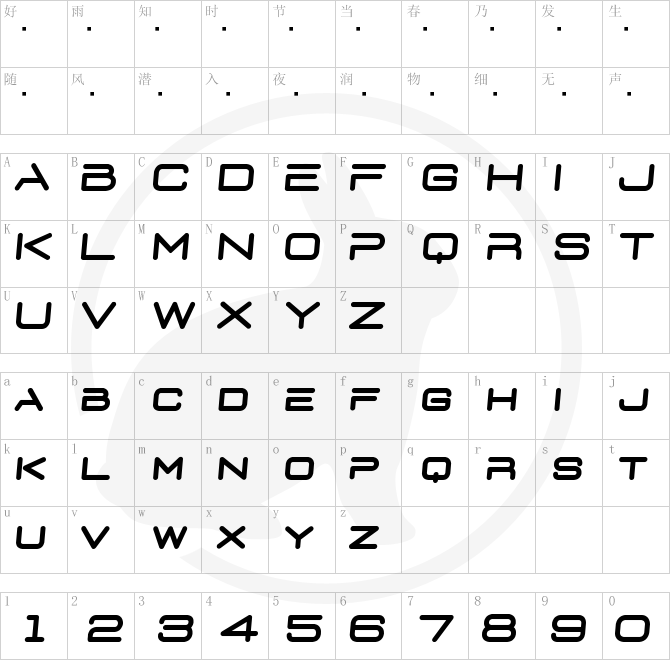
- Font Name:D3 Euronism Bold italic
D3-Euronism-Bold-italic.ttf is a very beautiful artistic font, D3-Euronism-Bold-italic.ttf is widely used in the design and printing of various books and pictures,D3-Euronism-Bold-italic.ttf has a strong visual impact,D3-Euronism-Bold-italic.ttf is a commonly used font in newspapers, magazines and books, and is used in posters, e-commerce Poster design, store design, logo design, font design and other fields.D3-Euronism-Bold-italic.